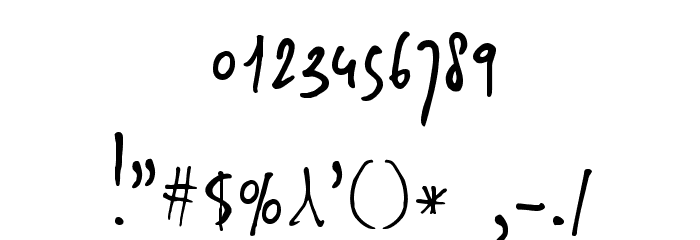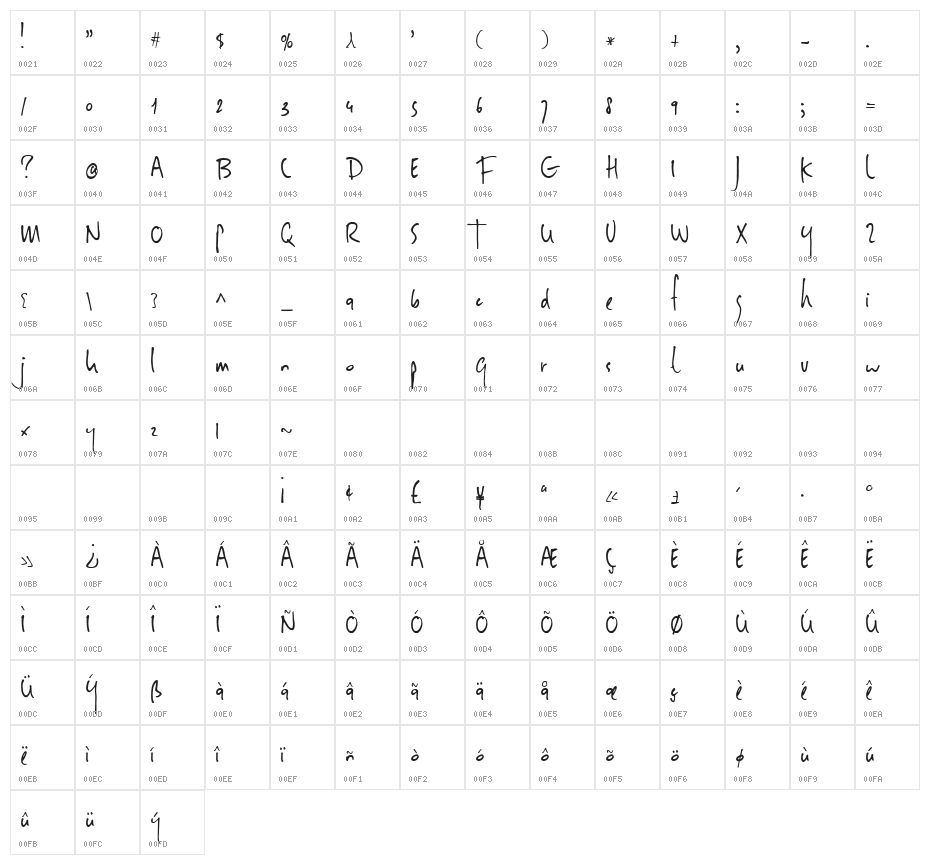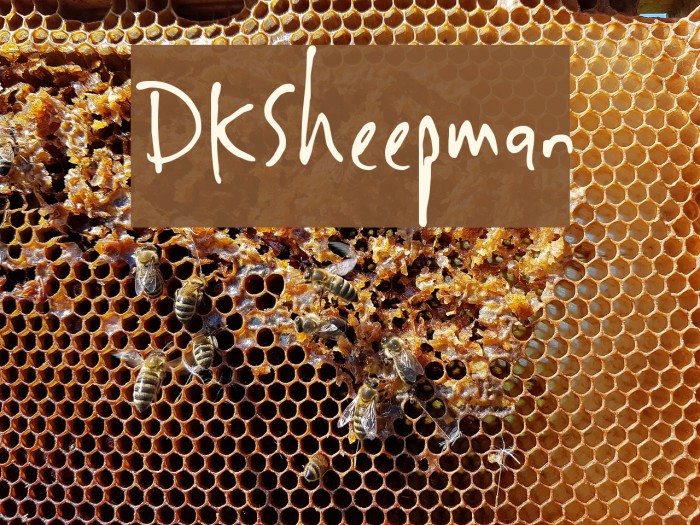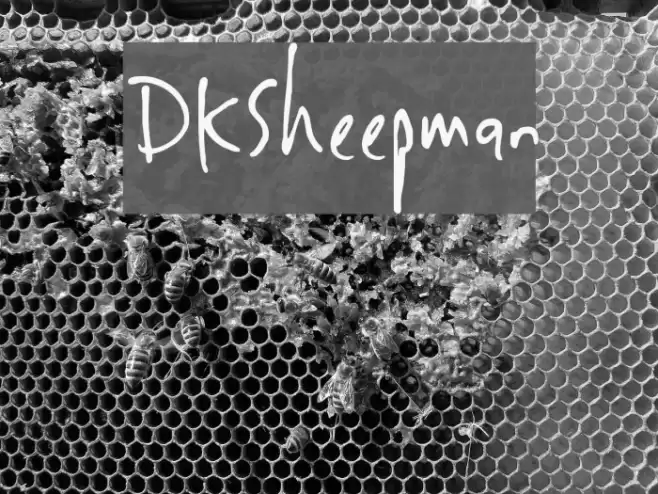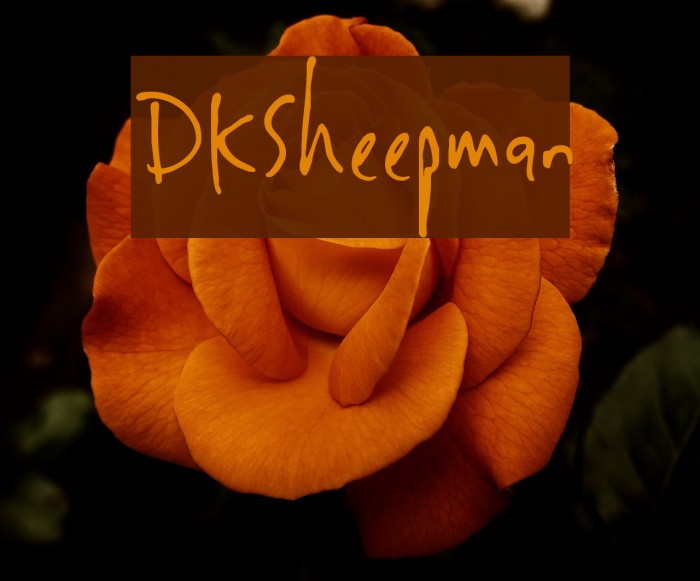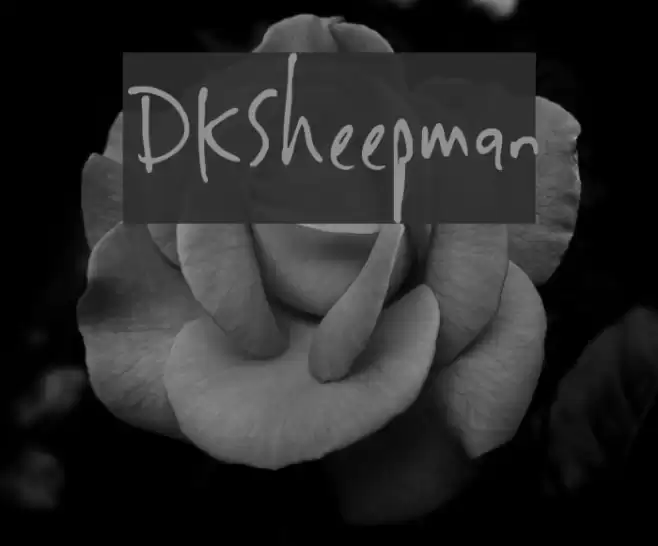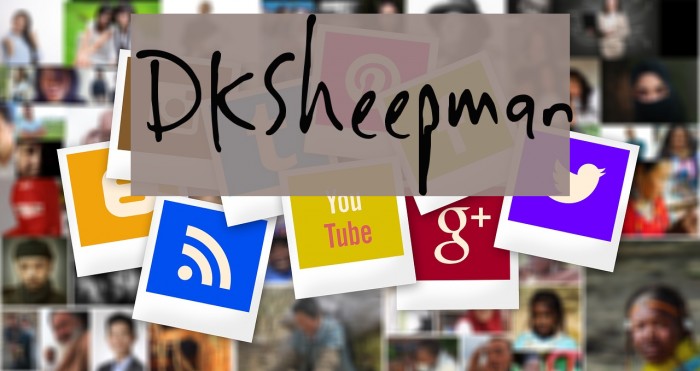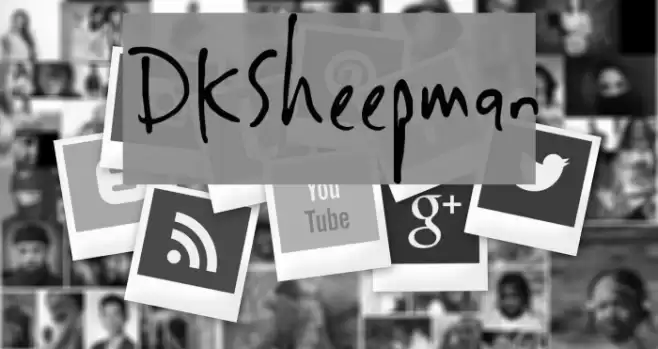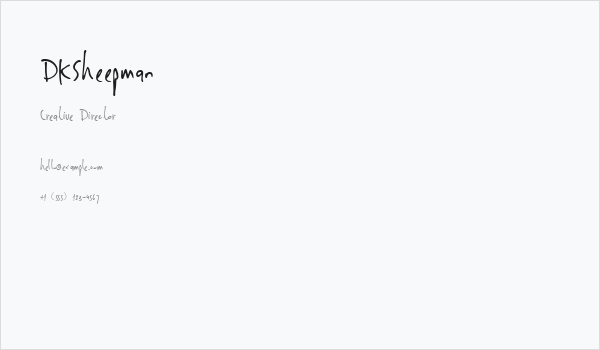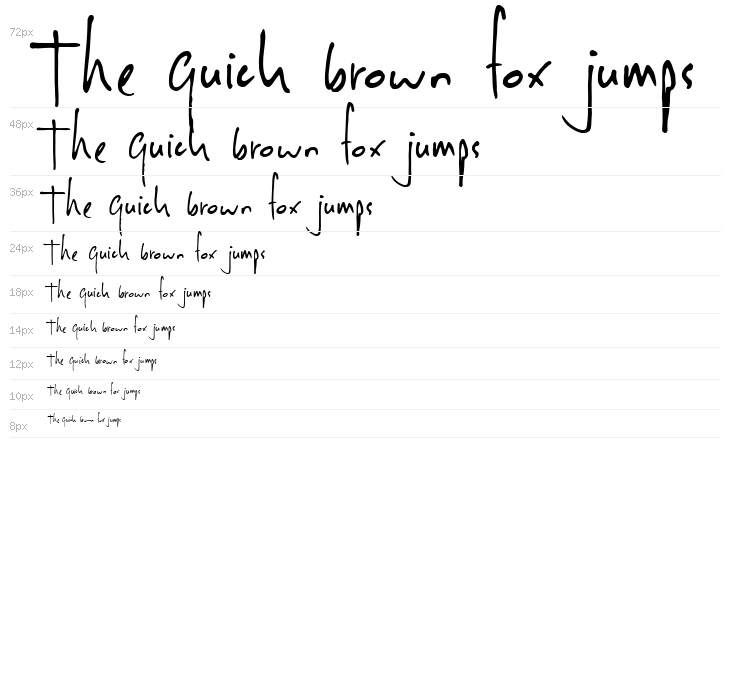
DKSheepman Font
DKSheepman Description
This font features a playful and informal handwritten style, characterized by its irregular strokes and casual appearance. The uppercase letters are bold and slightly uneven, giving a sense of spontaneity and creativity. The lowercase letters maintain the same playful nature, with some characters extending below the baseline, adding to the font's dynamic feel. The numerals are consistent with the overall style, with a quirky and approachable look. Special characters are included, maintaining the same hand-drawn aesthetic. This font is ideal for projects that require a personal touch or a relaxed, friendly vibe.
| Proposed Projects | Ideal for greeting cards, personal blogs, children's books, and informal branding projects. |